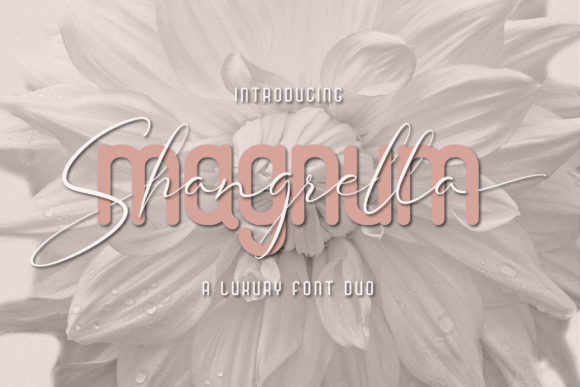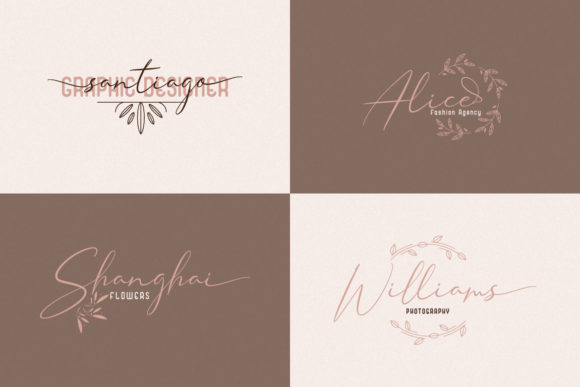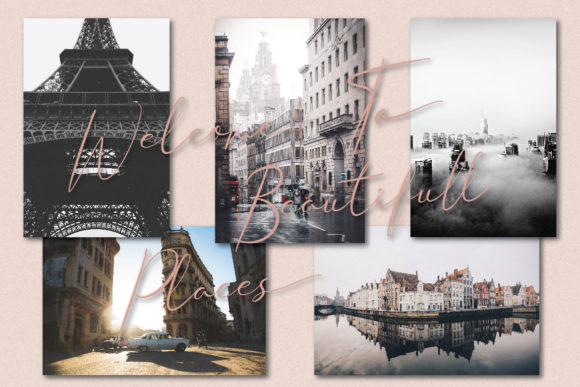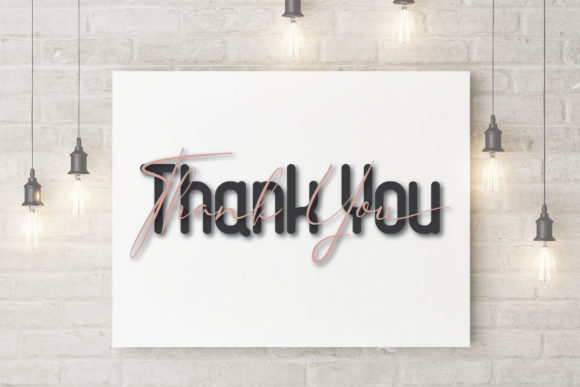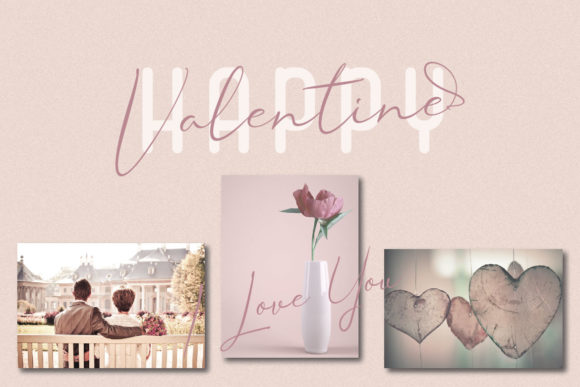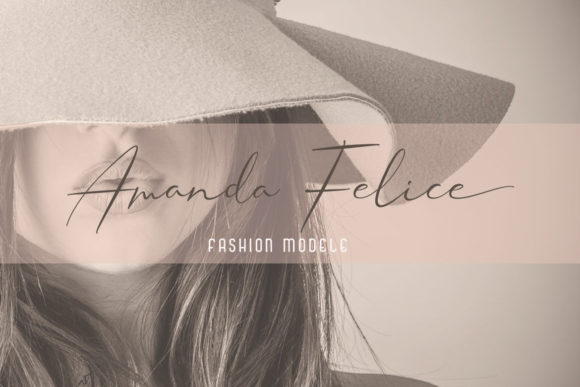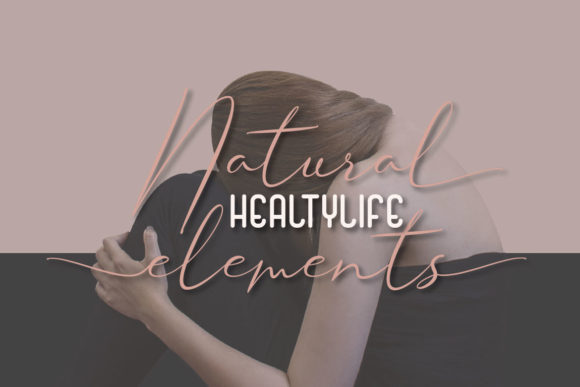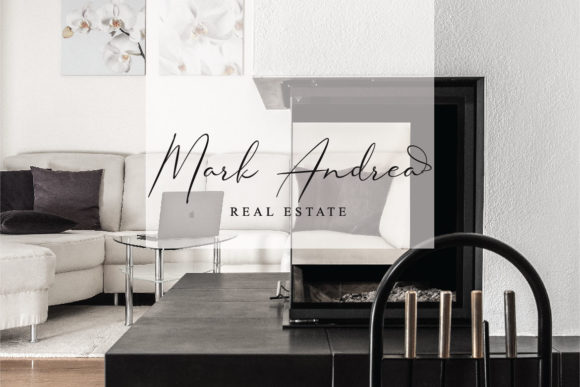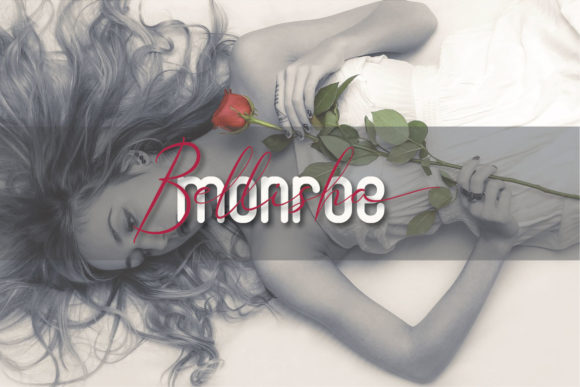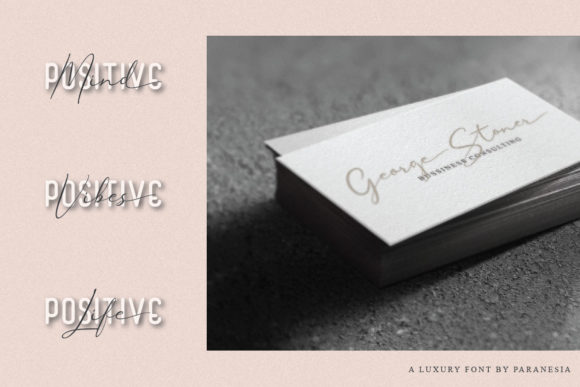
Magnum Shangrella Duo Font
About Magnum Shangrella Duo Font
The Magnum Shangrella is a beautiful font duo that combines two trends (modern calligraphy and modern sans serif) into one gorgeous package. This will help you to create an attractive, modern design in an instant.